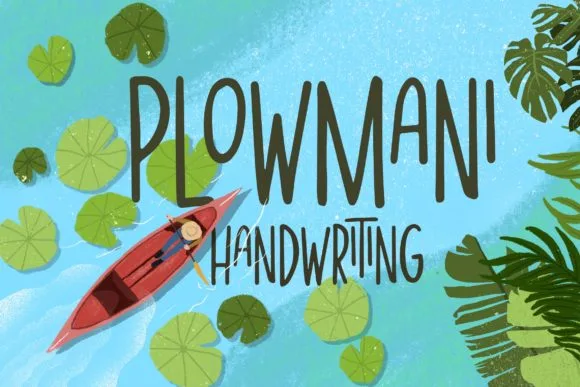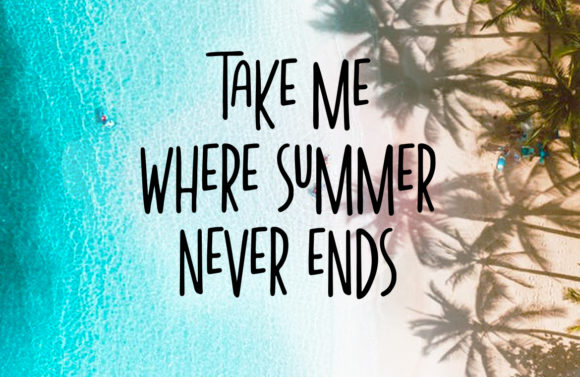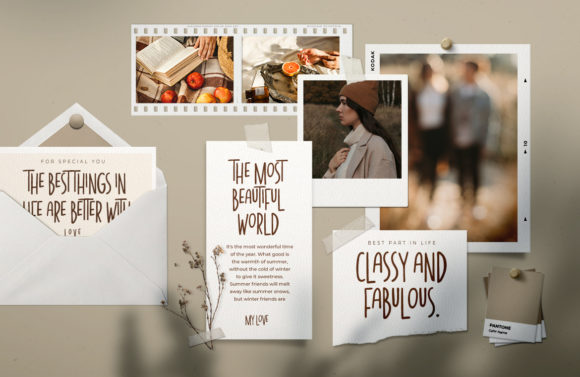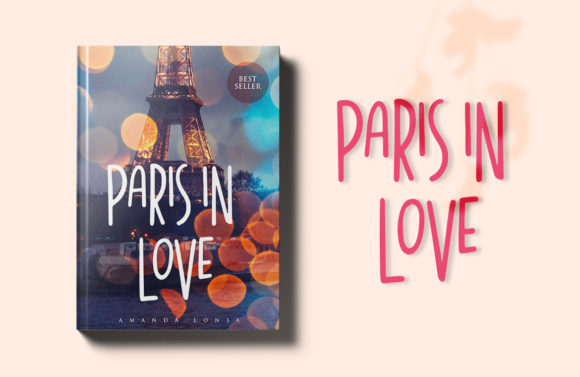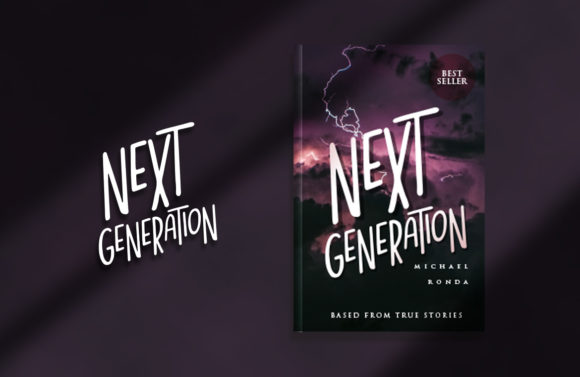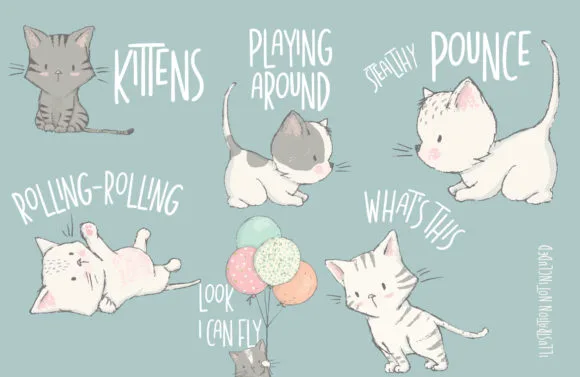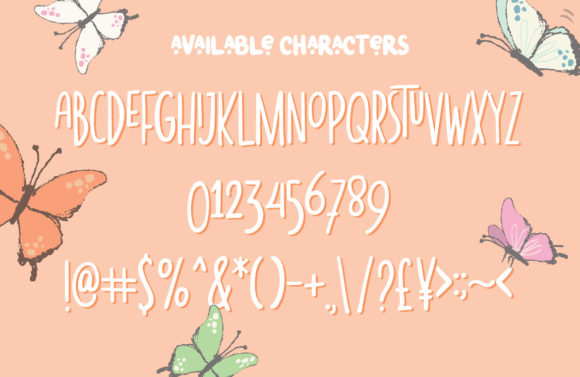
Plowmani Font
About Plowmani Font
Plowmani is a tall and carefully handcrafted handwritten font that brings a unique and playful touch to your designs. With its distinct character and easy-to-read letters, this font offers versatility and creativity across various projects.
The tall and slender design of Plowmani makes it stand out and adds a sense of elegance and sophistication to your typography. Whether you’re using it for websites, social media posts, book covers, logos, or any other design application, Plowmani is sure to catch the attention of your audience.
The carefully handcrafted nature of this font gives it a personal and authentic feel. Each letter has been meticulously crafted with attention to detail, resulting in a font that is both visually appealing and easy to read. The consistent stroke width and clean lines of Plowmani make it highly legible, ensuring that your message comes across clearly.
Plowmani’s versatility allows it to adapt to different design contexts. It can be used as a headline font to create a bold and eye-catching impact, or as body text to maintain readability and add a touch of whimsy. Its playful and fun style makes it a great choice for projects that aim to convey a lighthearted and approachable tone.
Whether you’re designing a website, creating social media graphics, designing book covers, or crafting a logo, Plowmani offers a wide range of possibilities. Its tall and carefully handcrafted design sets it apart and adds a unique touch to your designs. With its easy-to-read characters, it ensures that your message is delivered effectively.
In summary, Plowmani is a versatile and carefully handcrafted handwritten font with a tall and elegant design. Its easy-to-read characters and playful style make it suitable for a variety of design projects, including websites, social media posts, book covers, logos, and more. Add a touch of creativity and personality to your designs with Plowmani and captivate your audience with its unique charm.